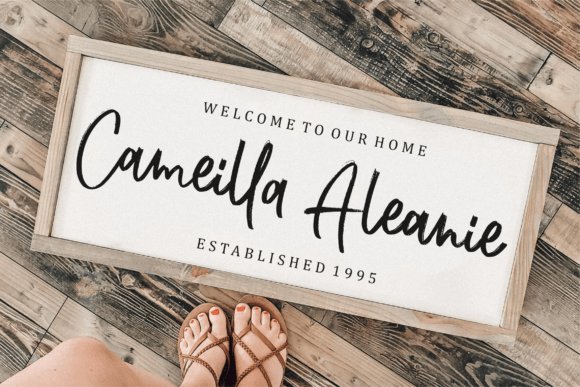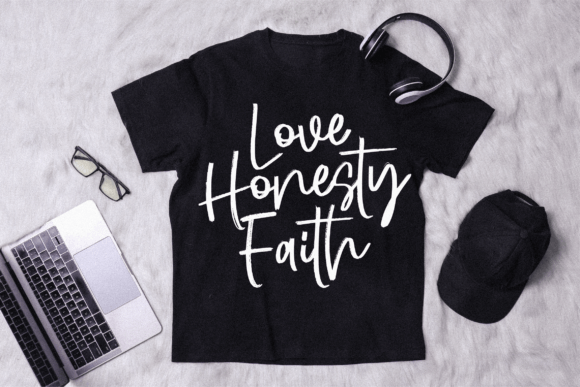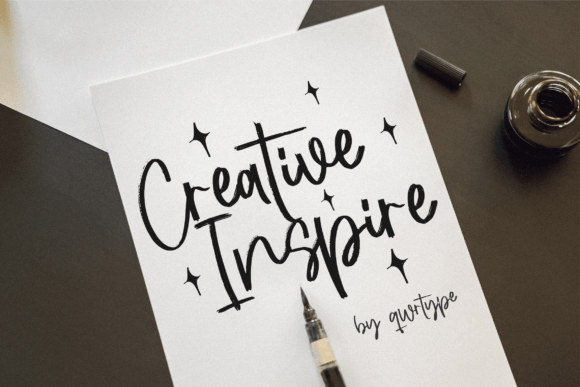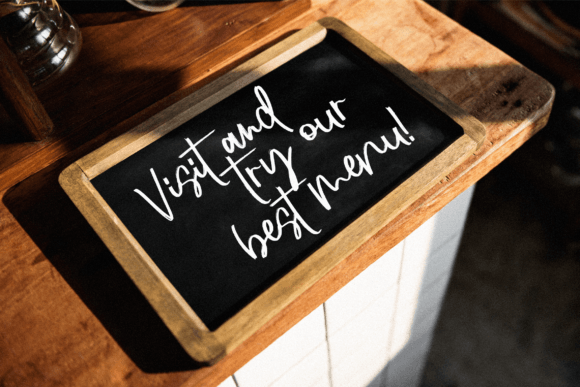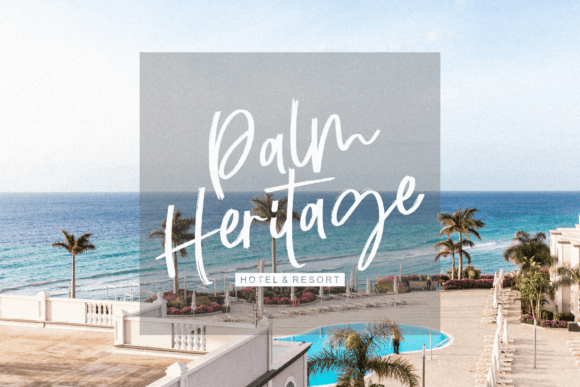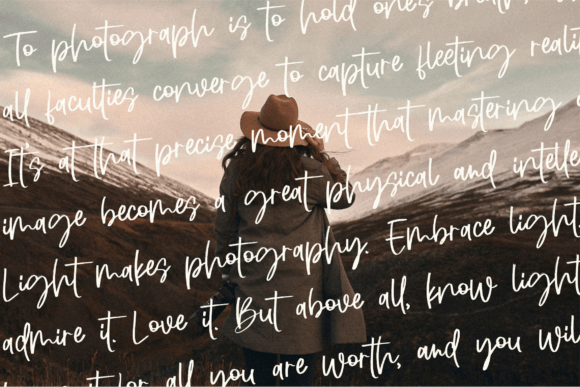
Introducing Bespoquet Font: Elevate Your Designs with Elegance and Flair
In the world of typography, few fonts manage to capture the essence of elegance and sophistication as effortlessly as Bespoquet. This delicate, elegant, and flowing handwritten font has been making waves among designers and crafters alike, and for good reason. With its beautiful and well-balanced characters, Bespoquet is the perfect addition to a wide range of designs, from wedding invitations and branding materials to digital content and craft projects.
The Characteristics of Bespoquet Font
So, what makes Bespoquet stand out from the crowd? For starters, its delicate and flowing nature gives it a sense of movement and fluidity, making it perfect for designs that require a touch of elegance and sophistication. The characters in Bespoquet are meticulously crafted to ensure balance and harmony, resulting in a font that is both visually appealing and easy to read.
Whether you’re working on a romantic wedding invitation, a luxury brand’s logo, or a stylish blog post, Bespoquet’s versatility shines through. Its ability to adapt to different design contexts makes it a valuable asset for any designer or crafter looking to elevate their work.
Why Designers and Crafters Love Bespoquet
Bespoquet’s popularity among designers and crafters can be attributed to its unique combination of style, versatility, and ease of use. Here are just a few reasons why Bespoquet has become a go-to font for creative professionals:
- Elegance and Sophistication: Bespoquet adds a touch of luxury and refinement to any design, making it perfect for high-end brands, wedding planners, and lifestyle bloggers.
- Versatility: From digital content to print materials, Bespoquet’s flowing script works beautifully across various mediums and design contexts.
- Easy to Read: Despite its elegant nature, Bespoquet remains clear and legible, ensuring that your message is conveyed effectively.
- Customization: Bespoquet’s unique character set allows for creative experimentation and customization, giving designers the freedom to add their personal touch.
Adding Bespoquet to Your Designs
So, how can you incorporate Bespoquet into your designs and bring your creative ideas to life? Here are a few tips:
- Pair it with Bold Fonts: Combine Bespoquet with bold, contrasting fonts to create visual interest and hierarchy.
- Use it for Headings: Bespoquet’s elegance shines through in headings and titles, making it perfect for blog posts, articles, and marketing materials.
- Experiment with Colors: Play with different color palettes to find the perfect match for your Bespoquet font, from soft pastels to rich jewel tones.
In conclusion, Bespoquet font is a game-changer for designers and crafters looking to add a touch of elegance and sophistication to their work. With its delicate, flowing script and well-balanced characters, Bespoquet is the perfect addition to a wide range of designs. Whether you’re working on a wedding invitation, branding materials, or digital content, Bespoquet is sure to elevate your creative ideas and bring them to life.